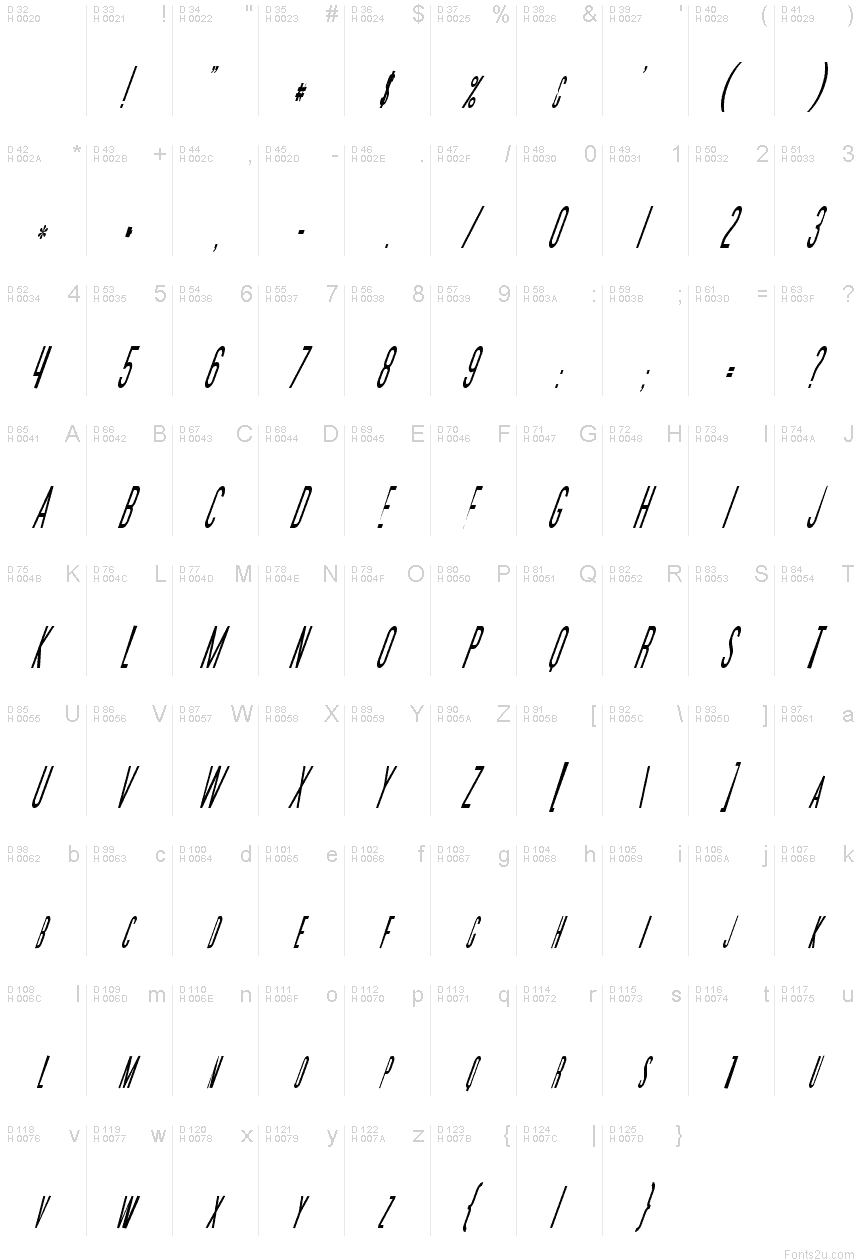
Movie Poster Condensed Italic
Movie Poster Condensed Italic font by Shywedge is a free cinematic display typeface that delivers pure, slap-in-the-face drama. Its ultra-condensed, razor-slim letters lean forward like a title racing across the screen, with tight spacing that packs big words into narrow spaces without losing legibility. The overall texture feels sleek and glossy, like ink stretched across a glossy poster, giving headlines an instant sense of motion and anticipation.
Using Movie Poster Condensed Italic, your titles snap to attention on movie posters, streaming thumbnails, event flyers, book covers, and bold social graphics. This free font also shines on music artwork and fashion promos where you want a tall, stylish logotype feel. Pair it with a simple geometric sans in smaller sizes for body copy, and let Movie Poster Condensed handle the loud, vertical, marquee-style headlines.